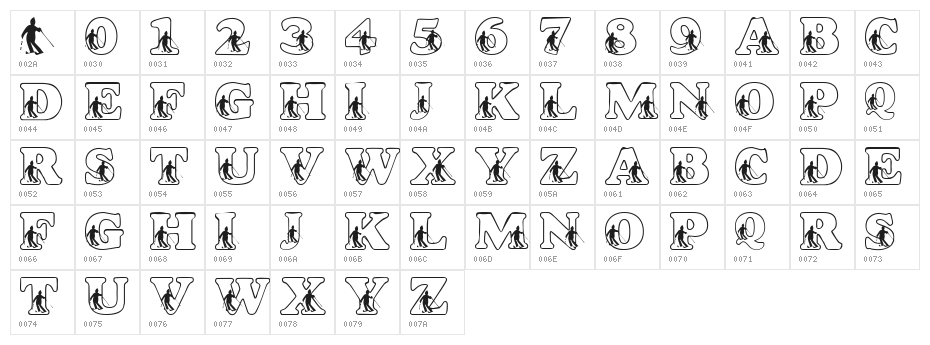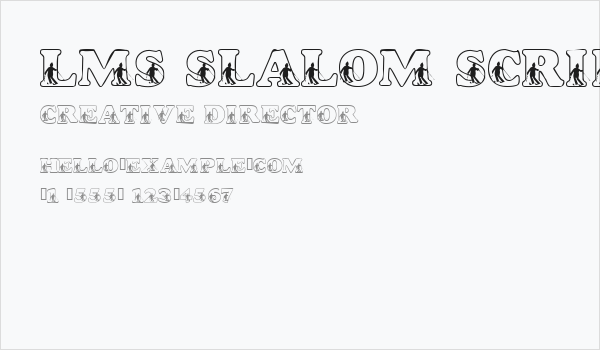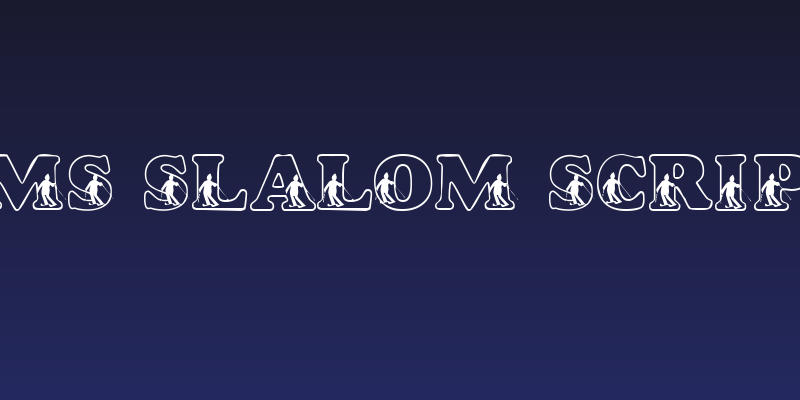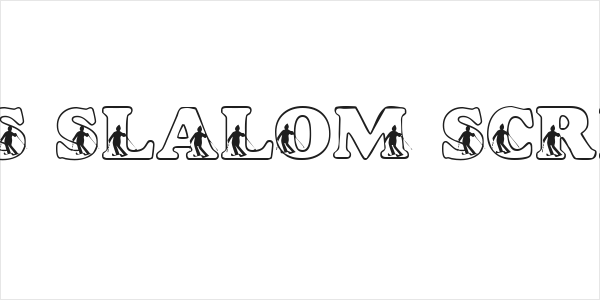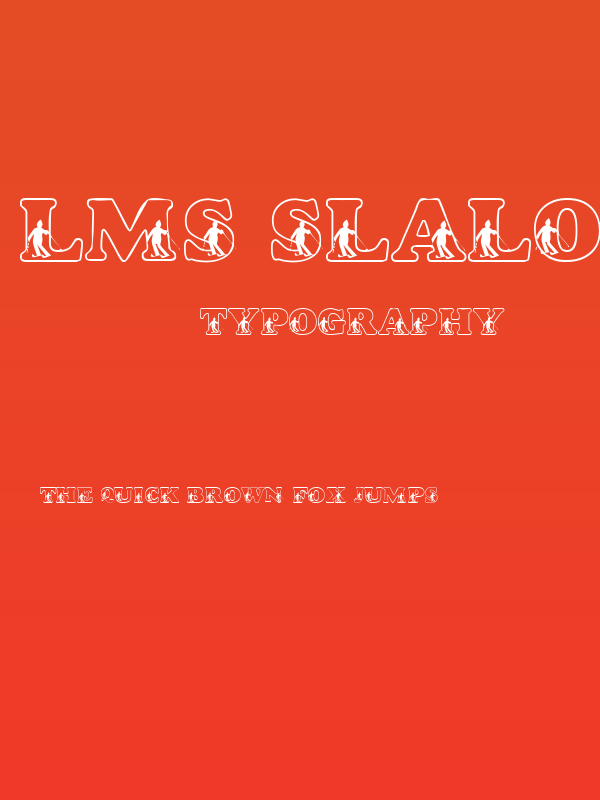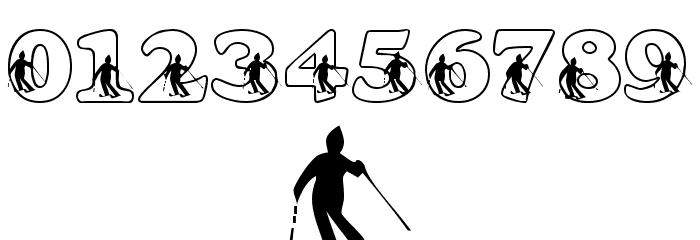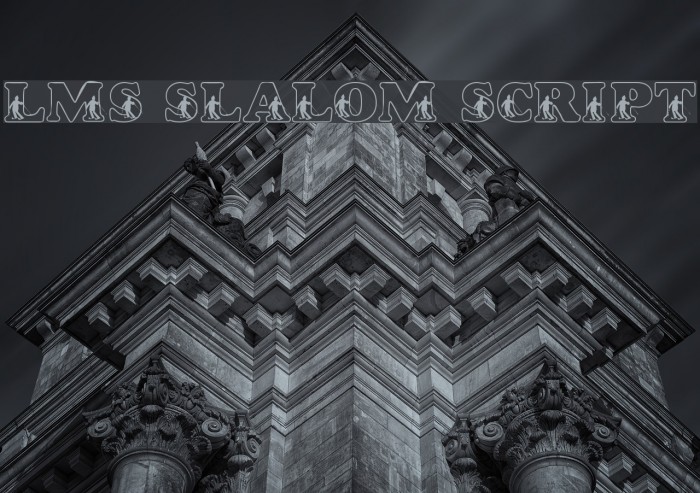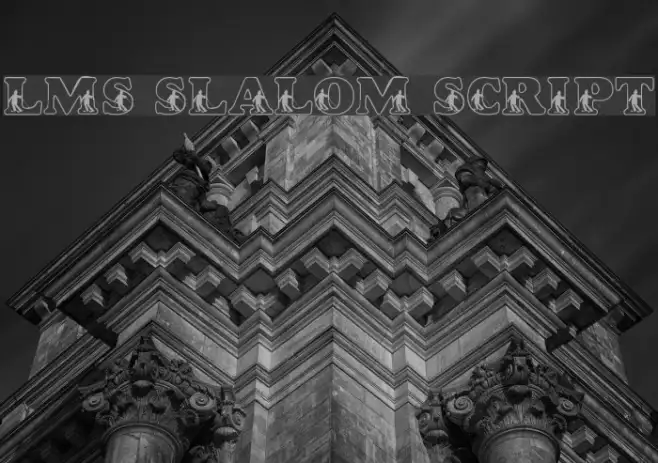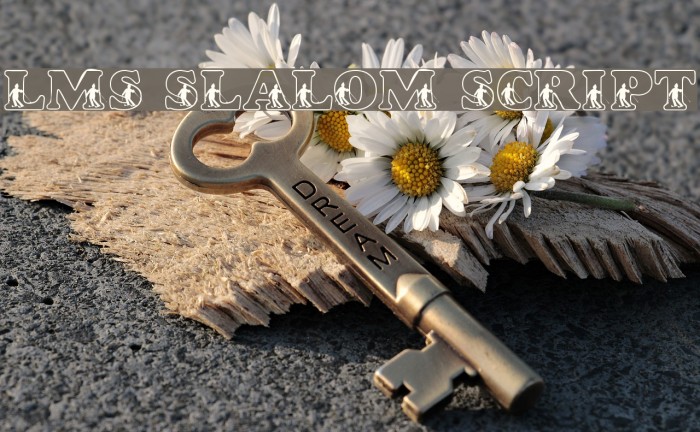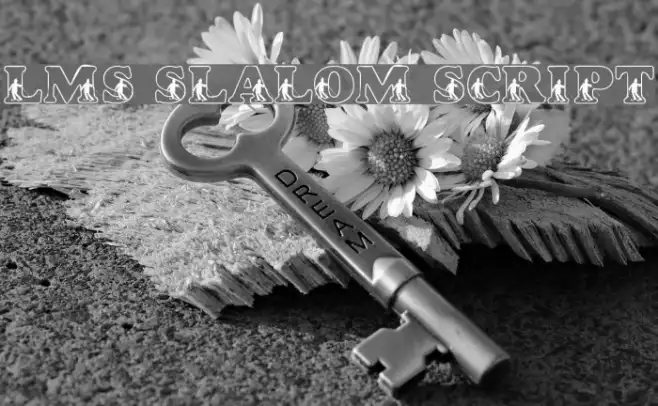
LMS Slalom Script Font
LMS Slalom Script Description
This decorative font features bold, uppercase letters and numbers with a unique twist. Each character is designed with a silhouette of a skier integrated into the letterform, creating a dynamic and sporty aesthetic. The outline style adds a playful and adventurous feel, making it perfect for winter sports themes. The font maintains a consistent weight and width across all characters, ensuring readability while highlighting its distinctive design.
| Proposed Projects | Ideal for winter sports event posters, ski resort branding, and playful holiday cards. |